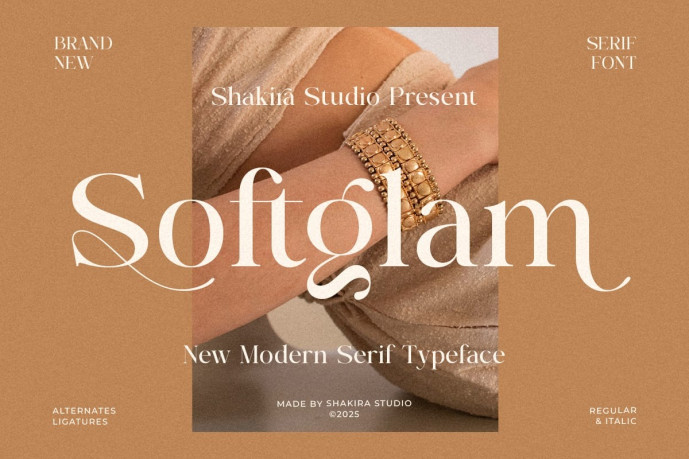
Softglam Font
Designer: IdhhamCholid
Softglam Font is a modern elegant serif typeface designed for sophisticated branding and high-end visual identity. With refined curves, graceful ligatures, and balanced proportions, Softglam delivers a soft yet powerful presence across fashion logos, beauty packaging, editorials, and luxury marketing materials. Crafted for designers who value timeless elegance with a contemporary touch.